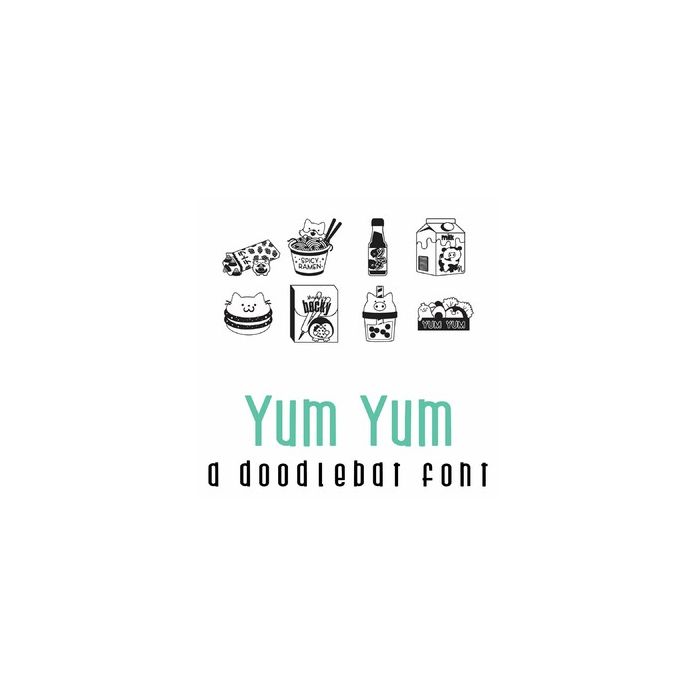
This adorable doodlebat font features 26 fun kawaii style japanese eats and treats, perfect for cards, crafts, decor, planner stickers, scrapbook pages, parties, and more!